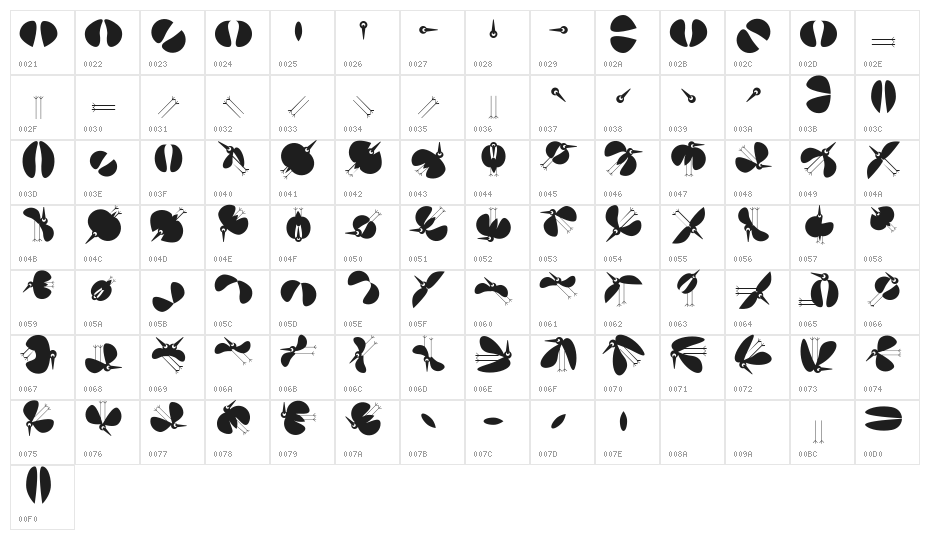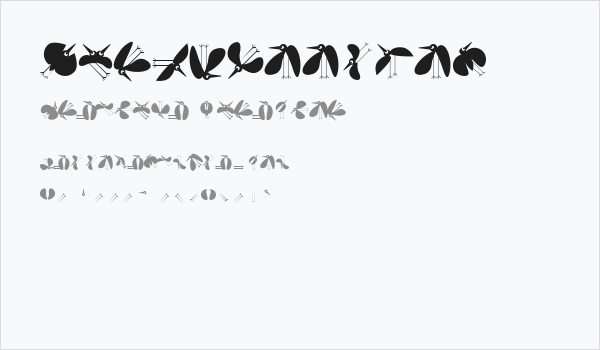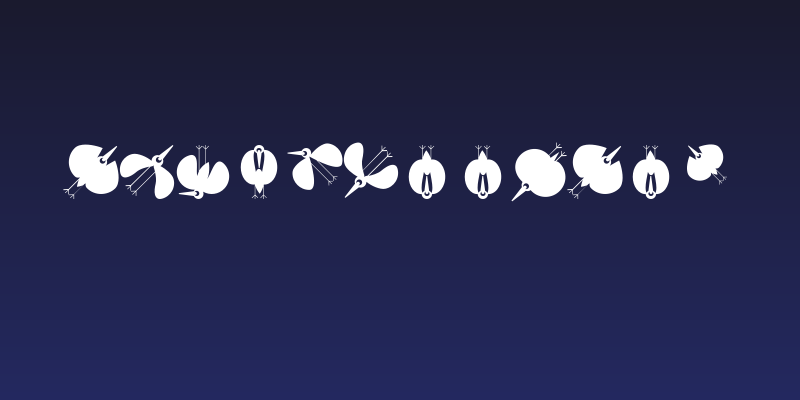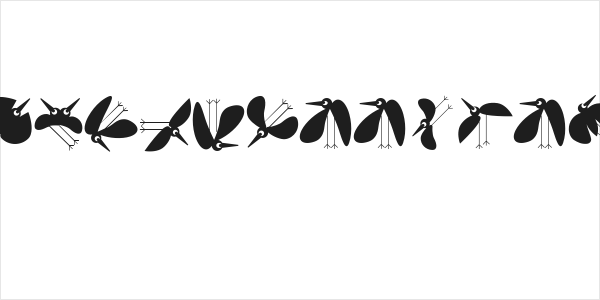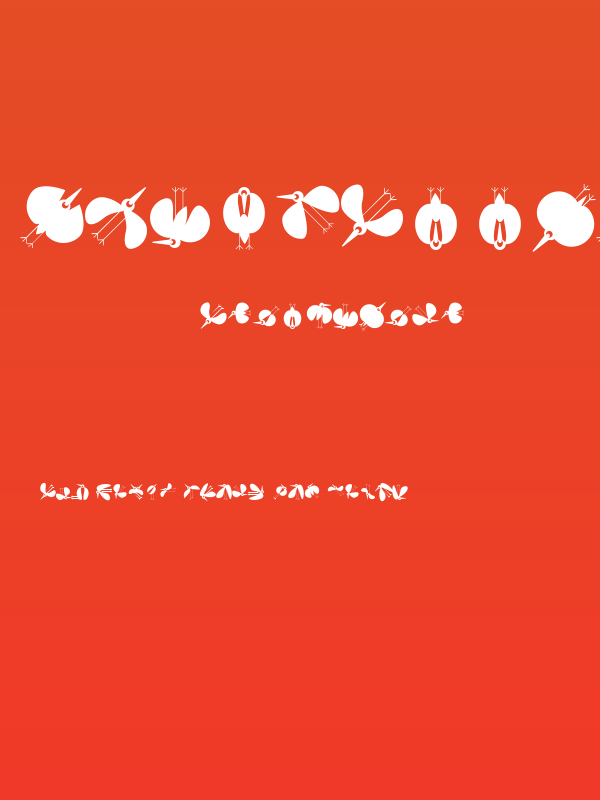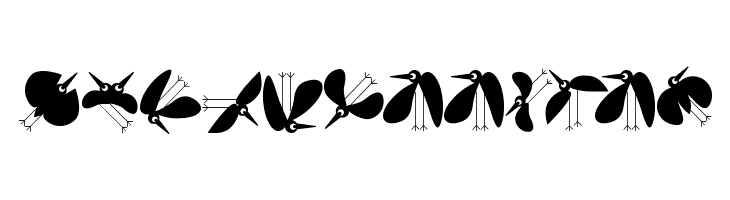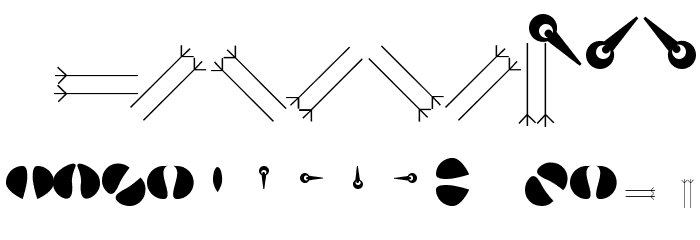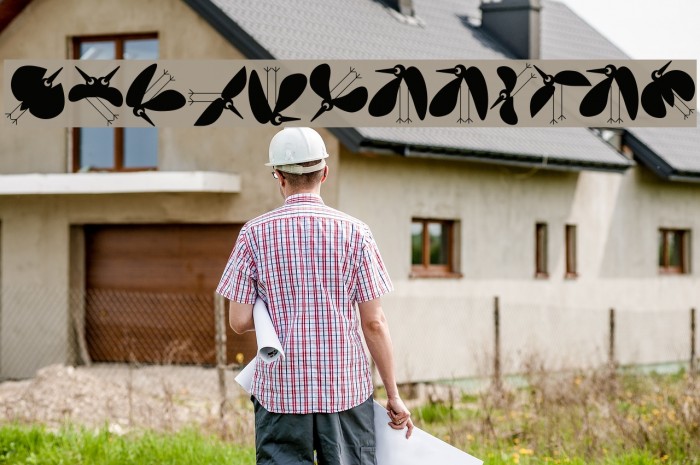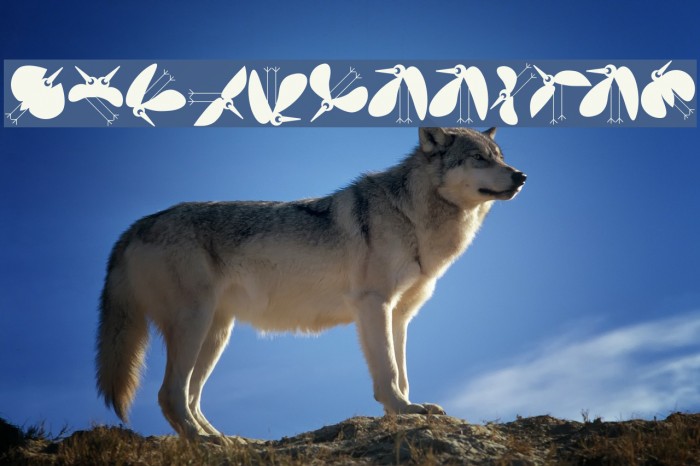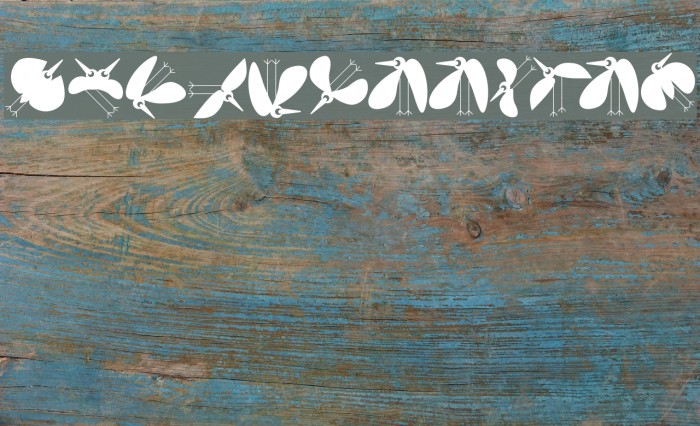
BirdsToolbox Font
BirdsToolbox Description
This unique and playful font is composed entirely of stylized bird illustrations, each character resembling a bird in various poses and forms. The design is highly decorative, with each letter taking on a distinct avian shape, incorporating elements like wings, beaks, and tails. The font is whimsical and artistic, making it ideal for projects that require a creative and eye-catching aesthetic. It is not suitable for body text due to its intricate design but can be used effectively in headlines or as a decorative element in graphic design projects.
BIRDSTOOLBOX UPPERCASE
BIRDSTOOLBOX LOWERCASE
BIRDSTOOLBOX OTHER CHARS
| Use Case | Headlines, Decorative elements |
| Proposed Projects | Ideal for creative projects such as children's book covers, artistic posters, and unique branding materials. |